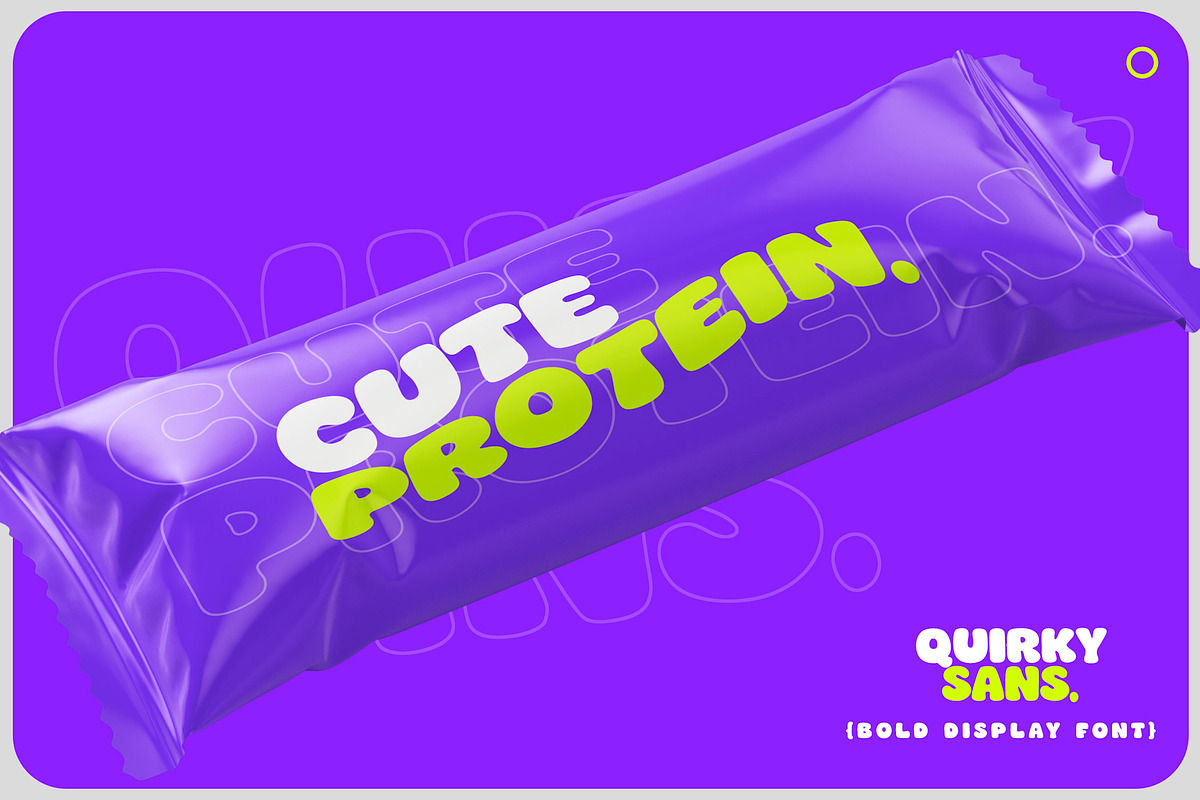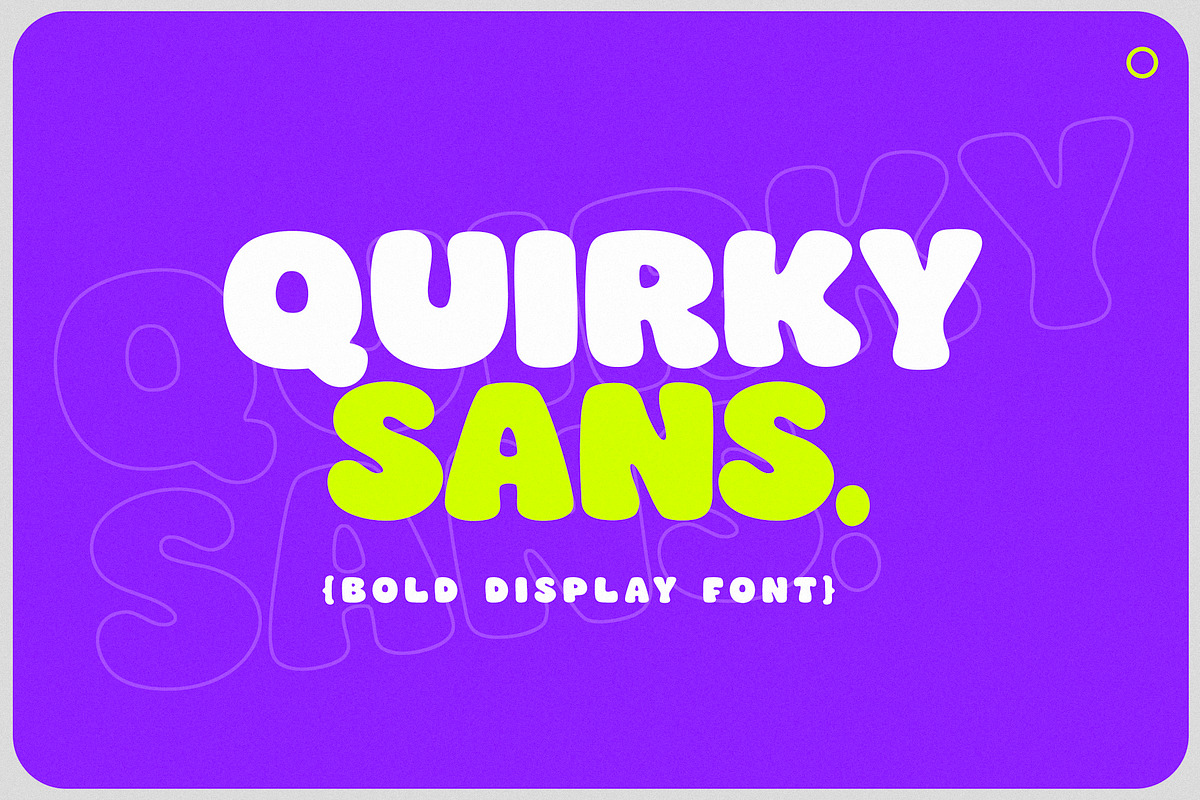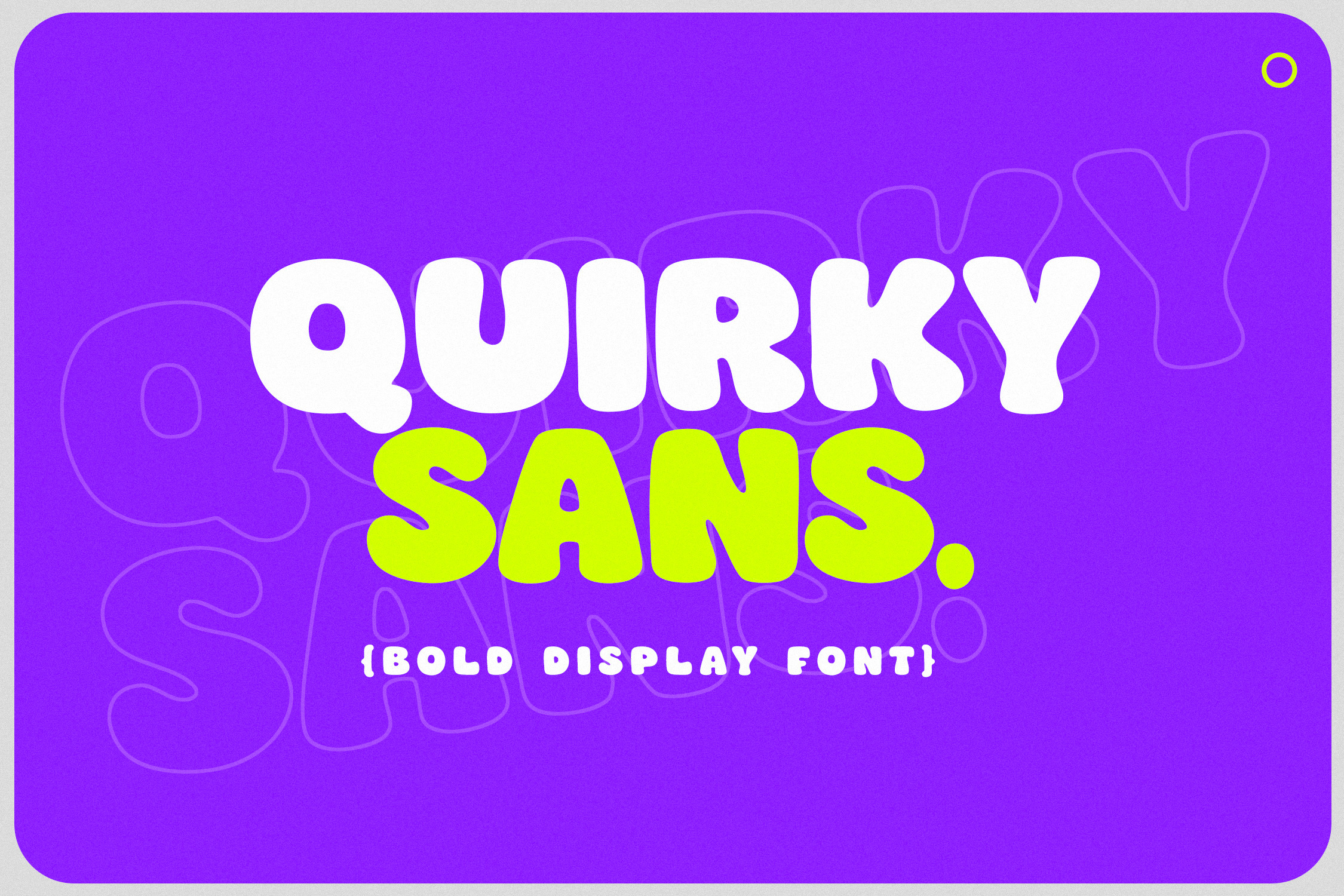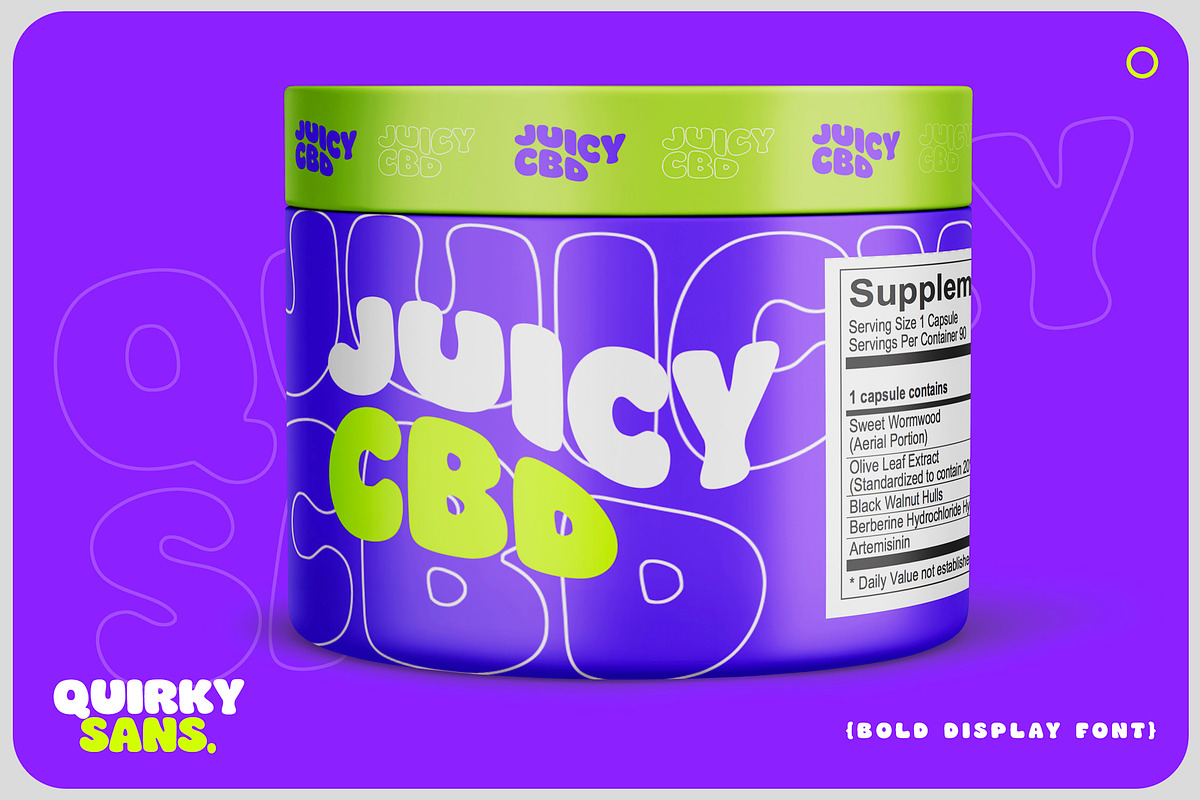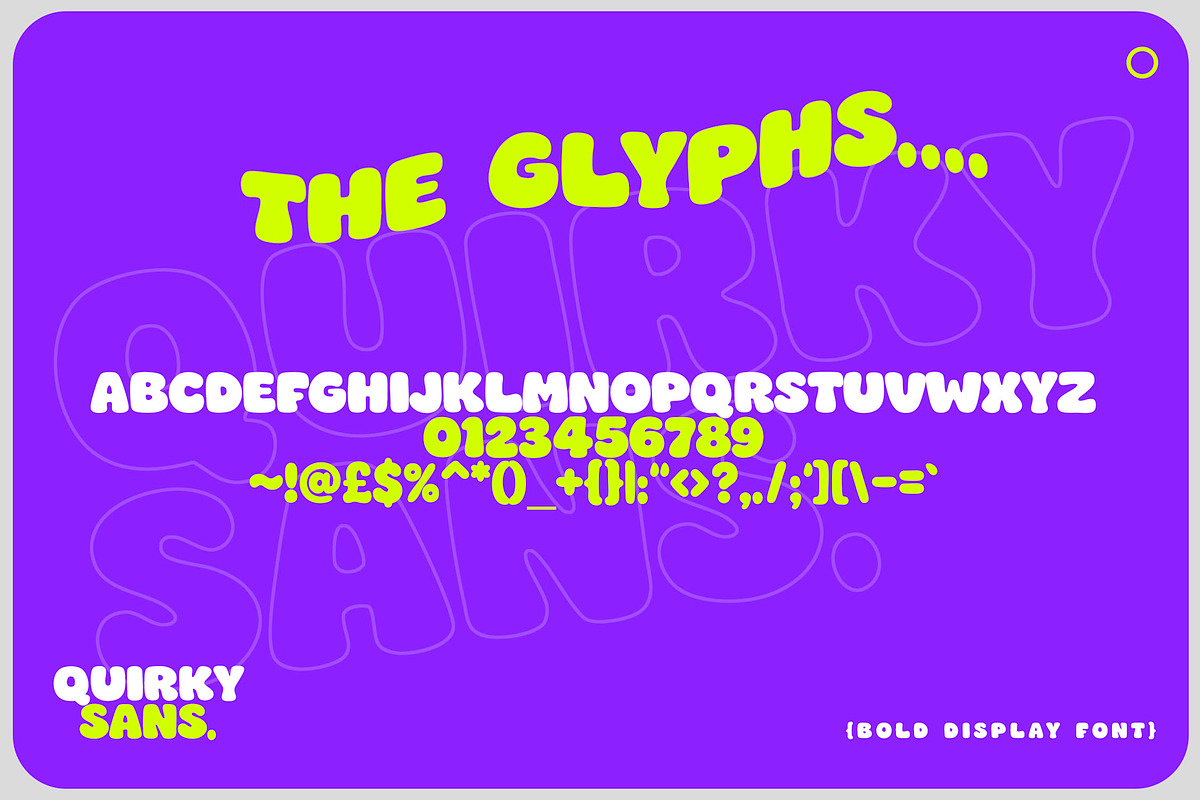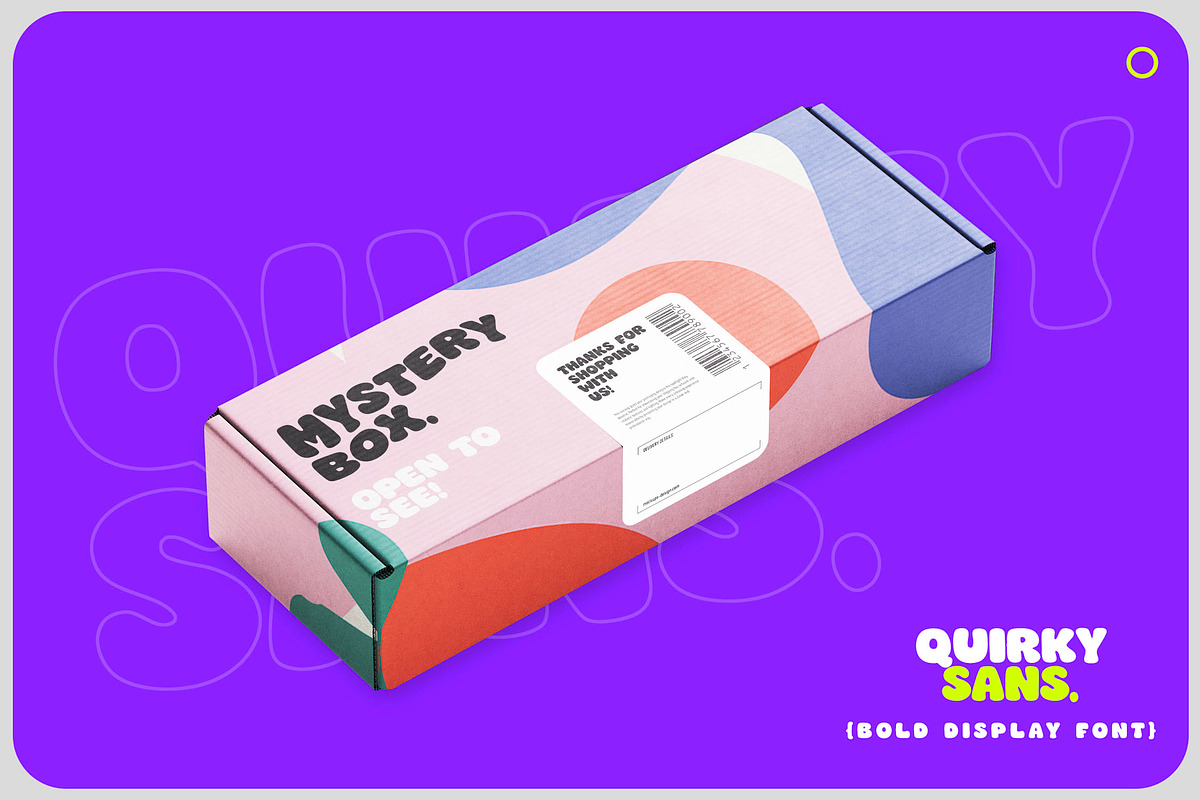
Quirky Sans - Bold Display Font
Introducing Quirky Sans - Bold, Bubble Typeface
This is a font perfectly made for branding, packaging, digital artwork and even gaming/3d work, the bold glyphs are made from curves, curves and more curves!